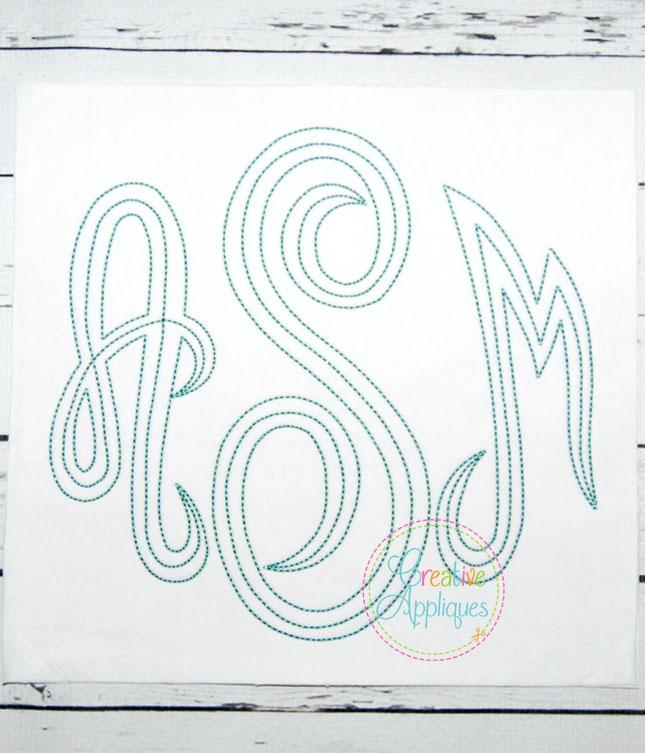
This decorative font is sewn in a decorative floss or bean stitch type stitching. Includes sizes 9″, 10″, 11″, and 12″.
1. Upper case letters A thru Z with left, center, and right letters
2. Comes in 4 sizes: 9″, 10″, 11″, 12″